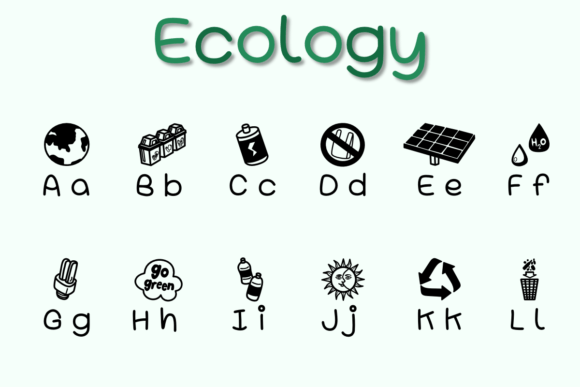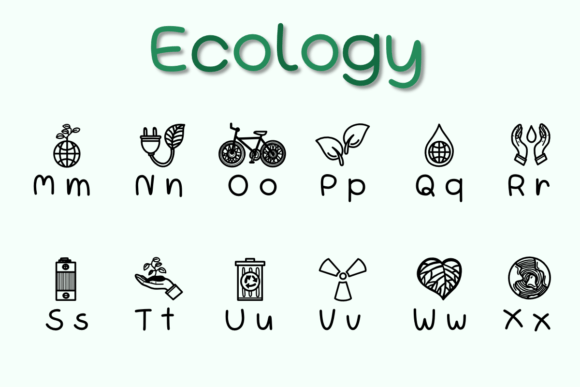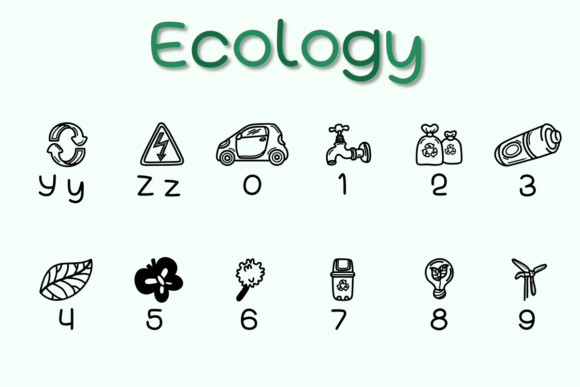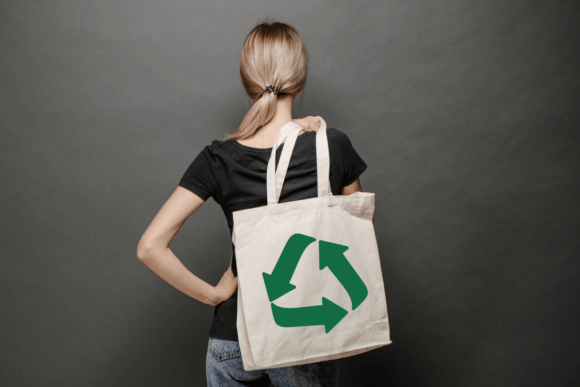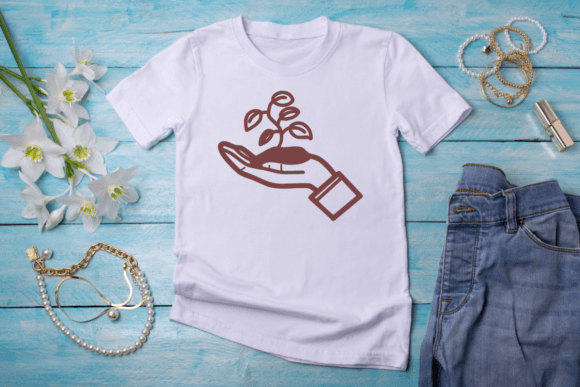
Ecology Font: A Sustainable Design Choice for Eco-Conscious Creators
In the realm of typography, fonts play a crucial role in conveying messages and adding aesthetic value to designs. For eco-conscious designers, crafters, and environmentally aware individuals, the Ecology Font offers a unique and engaging way to incorporate eco-friendly elements into their projects. This dingbat font replaces traditional letters and numbers with pictures related to the environment, making it an excellent choice for those looking to promote sustainability through their work.
What is Ecology Font?
Ecology Font is a dingbat font that uses images of natural elements and environmental symbols instead of conventional characters. Each symbol in the font represents something from nature or the environment, such as trees, leaves, recycling symbols, and more. This innovative font allows users to add a touch of eco-friendliness to their designs, making it perfect for projects that require a sustainable and environmentally conscious approach.
The Ecology Font offers several features and benefits that make it an attractive choice for designers and crafters:
- Eco-friendly icons: The font includes a wide range of eco-friendly icons that can be used to represent environmental concepts, such as recycling, conservation, and sustainability.
- Customizable: Users can combine different symbols to create unique and personalized designs.
- Versatile: The font can be used in various design projects, including digital and print materials, such as brochures, posters, and social media graphics.
Use Cases for Ecology Font
The Ecology Font can be used in a variety of design projects, including:
- Environmental campaigns: Use the font to create eye-catching posters, flyers, and social media graphics for environmental campaigns and initiatives.
- Eco-friendly branding: Incorporate the Ecology Font into your brand’s visual identity to convey a commitment to sustainability and eco-friendliness.
- Educational materials: Use the font to create engaging and informative educational materials, such as textbooks, workbooks, and activity sheets, that focus on environmental topics.
- Crafting and scrapbooking: Add a touch of eco-friendliness to your crafting and scrapbooking projects by using the Ecology Font to create custom titles, headings, and embellishments.
Tips for Using Ecology Font
To get the most out of the Ecology Font, consider the following tips:
- Mix and match symbols: Combine different symbols to create unique and interesting designs.
- Experiment with colors: Use a range of colors to add depth and visual interest to your designs.
- Keep it simple: Don’t overuse the font – use it sparingly to add emphasis and create visual interest.
The Ecology Font is a unique and engaging way to add eco-friendly elements to your design projects. With its wide range of environmental symbols and ease of use, this font is perfect for designers, crafters, and environmentally conscious individuals looking to promote sustainability through their work. Whether you’re working on a environmental campaign, eco-friendly branding, or crafting project, the Ecology Font is a great choice for adding a touch of eco-friendliness to your designs.